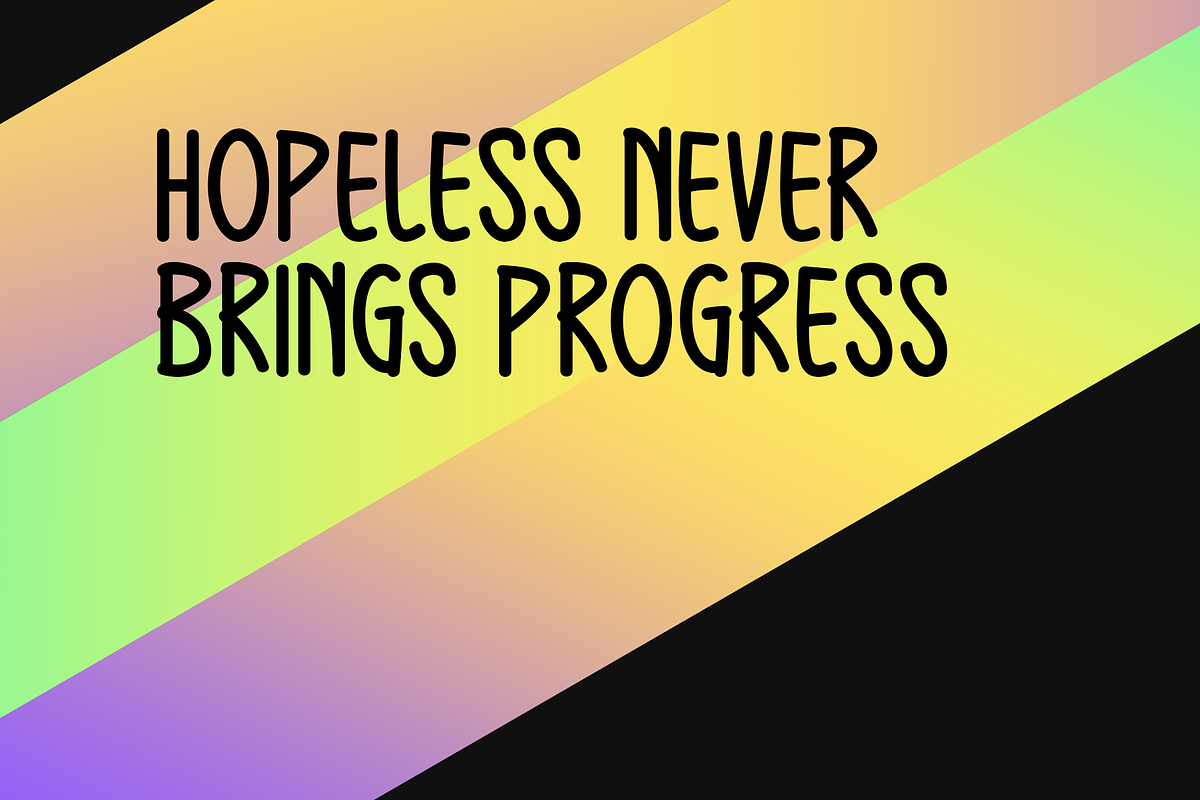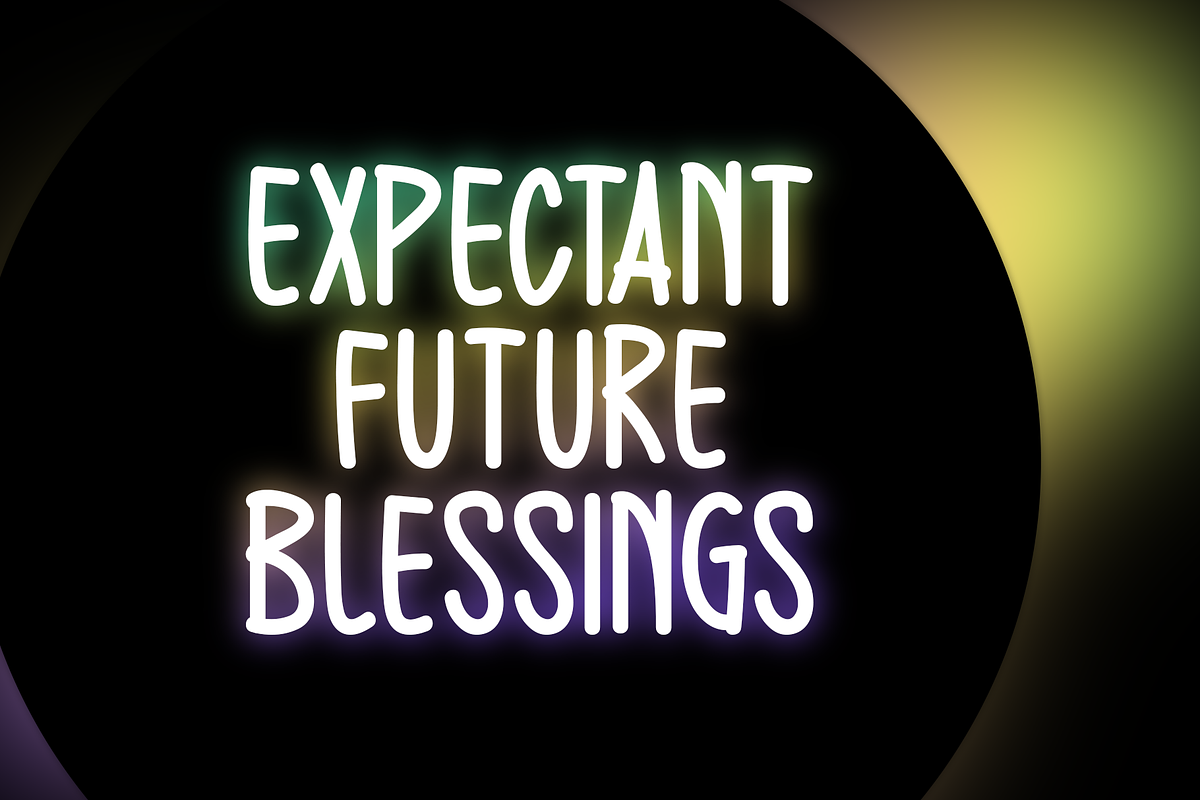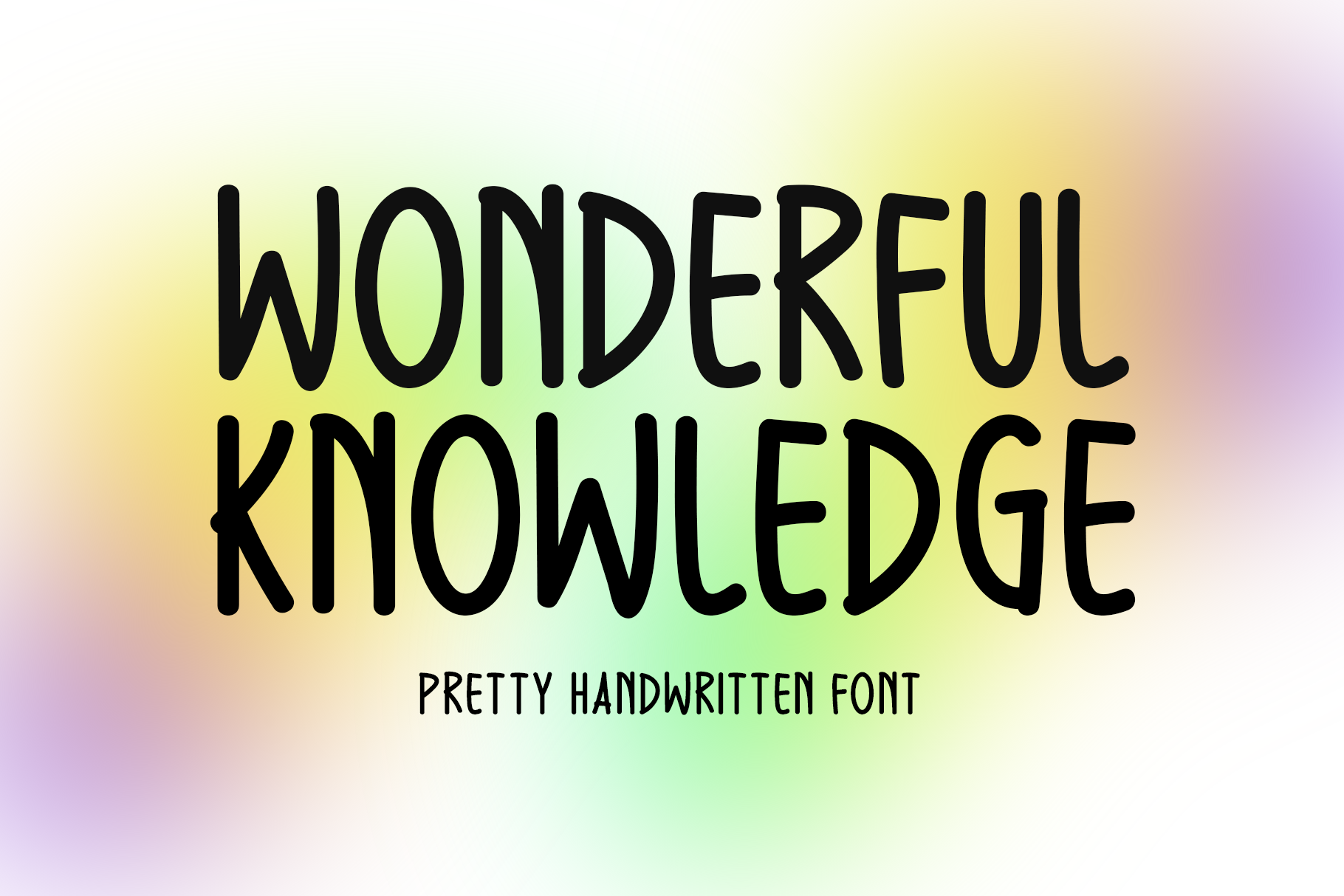
Wonderful Knowledge Typeface
Introducing Wonderful Knowledge!
Wonderful Knowledge is a lovely handwritten typeface that combines elegance and sweetness, making it a flexible option for artistic endeavors. For stationery, branding, t-shirts, invitations, posters, music covers, and digital projects, its elegant and smooth strokes are ideal. Wonderful Knowledge adds a cozy, handmade touch that gives every item elegance and individuality, whether it is utilized for individual or company endeavors.